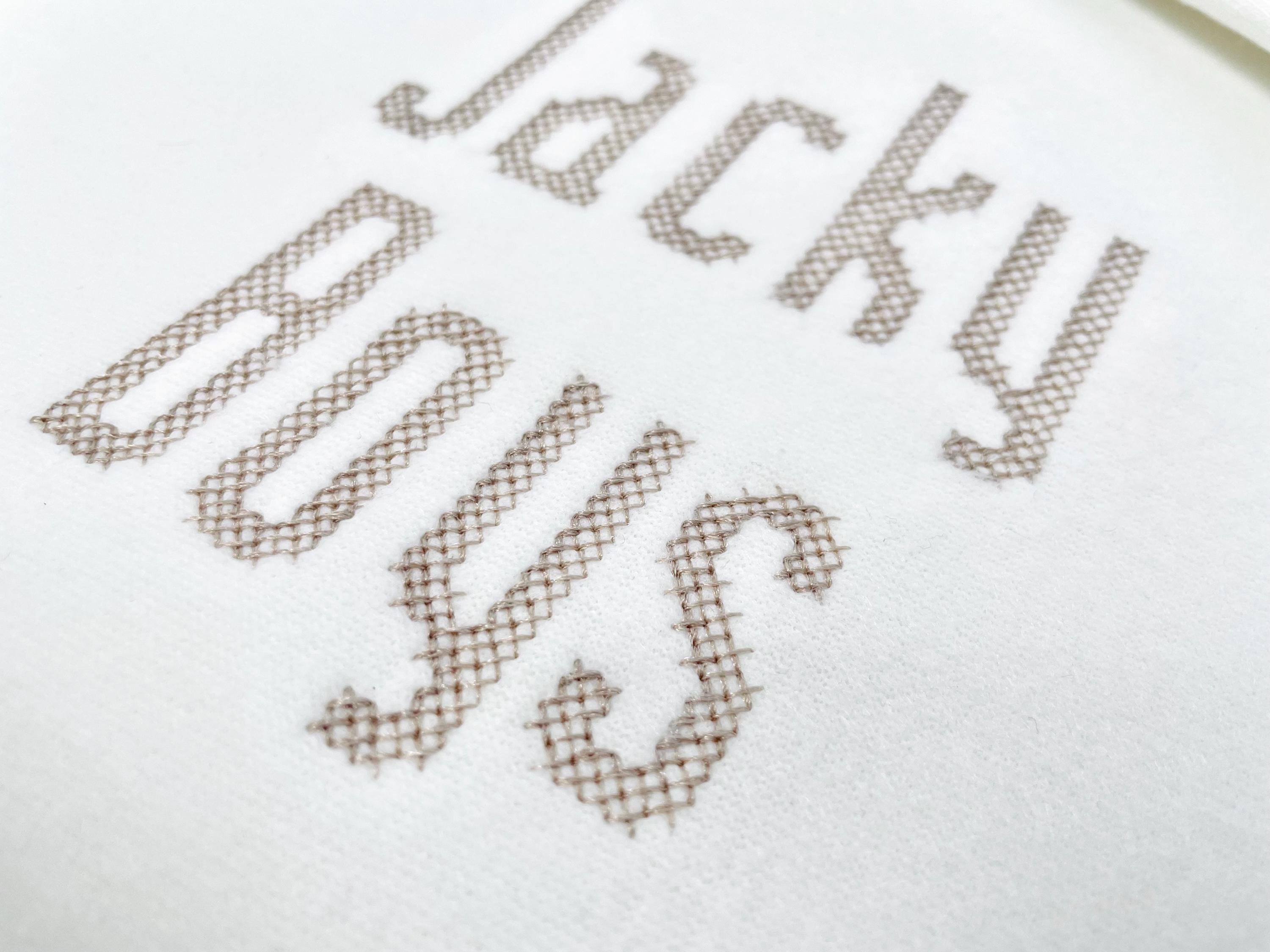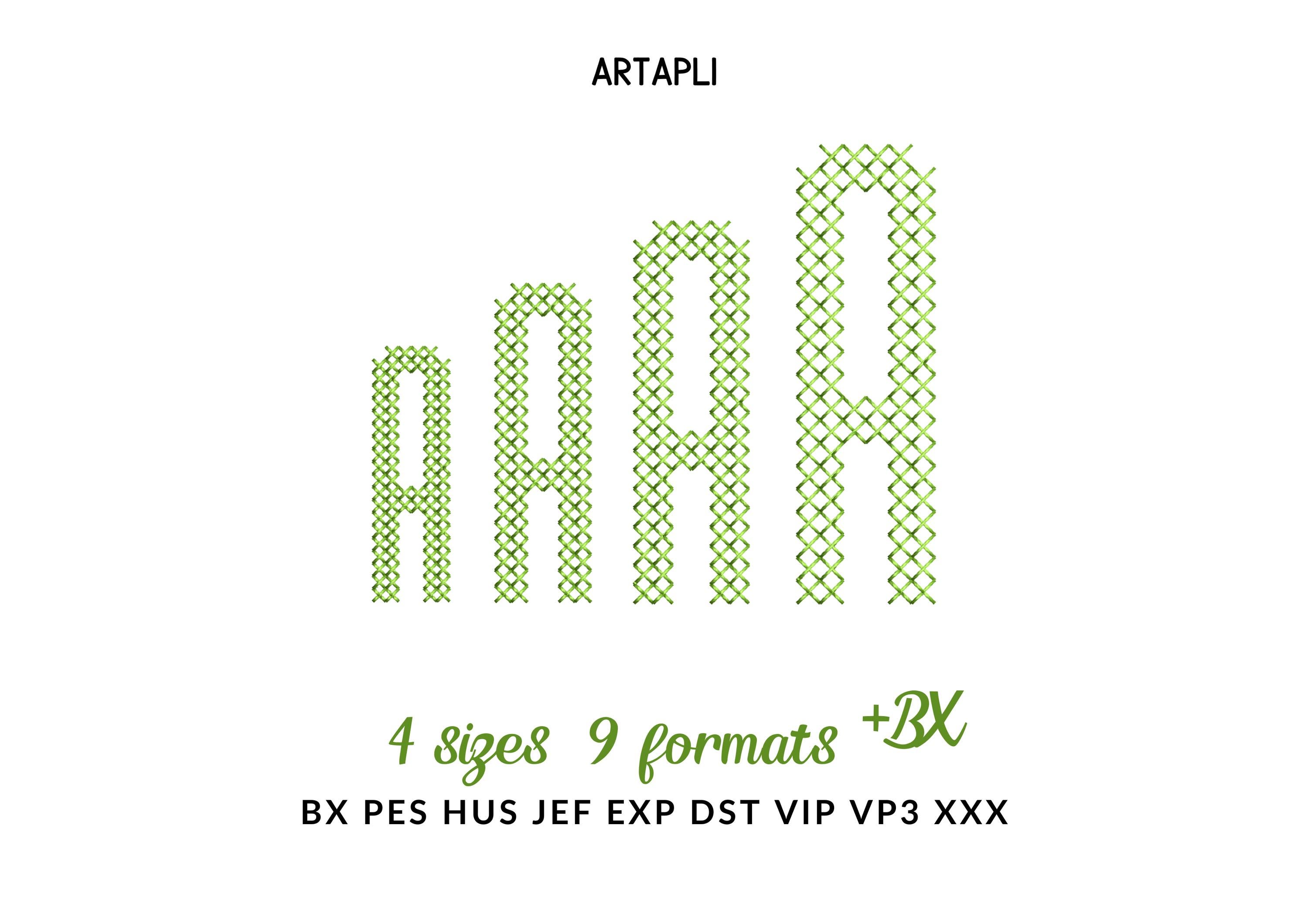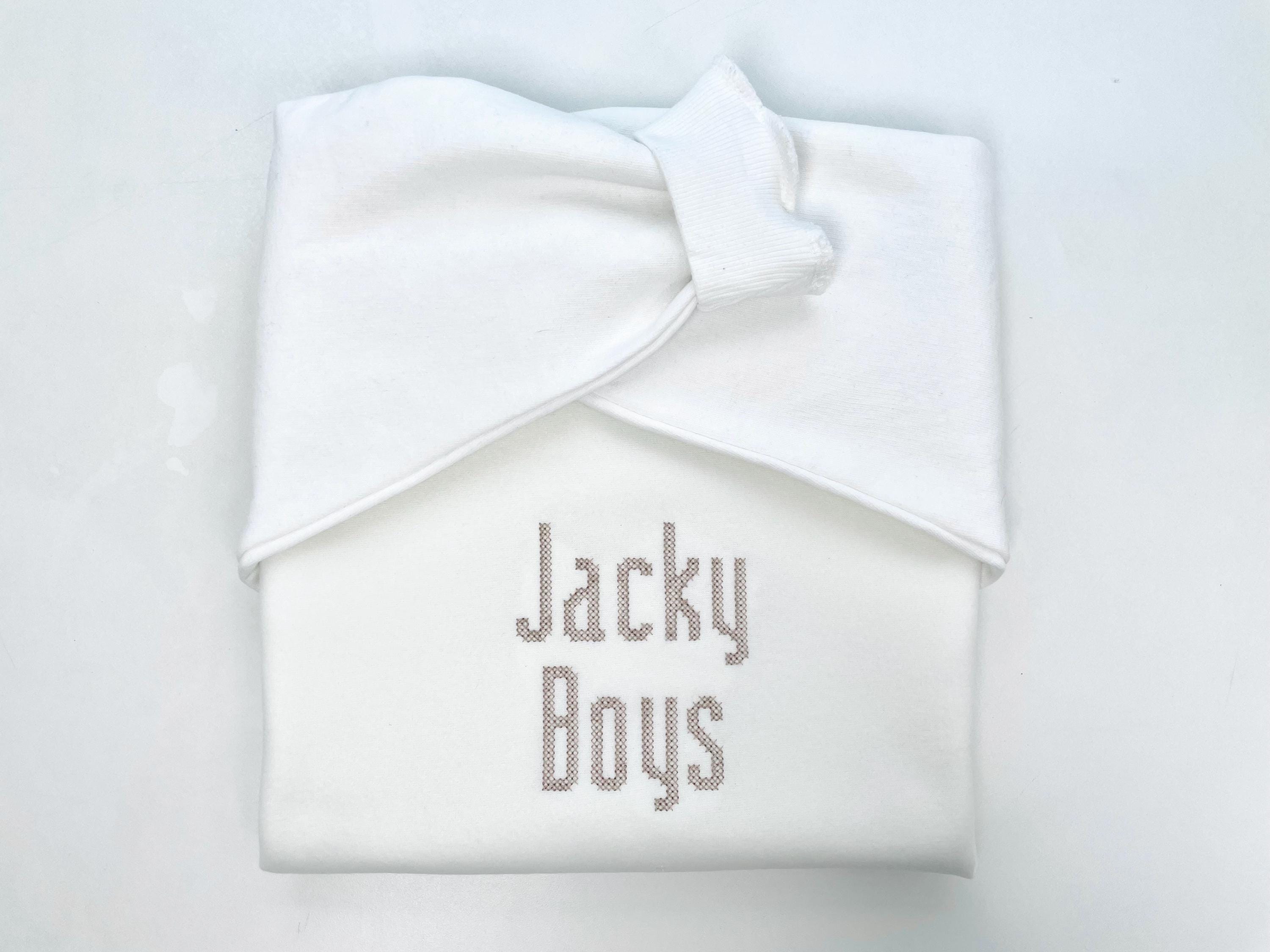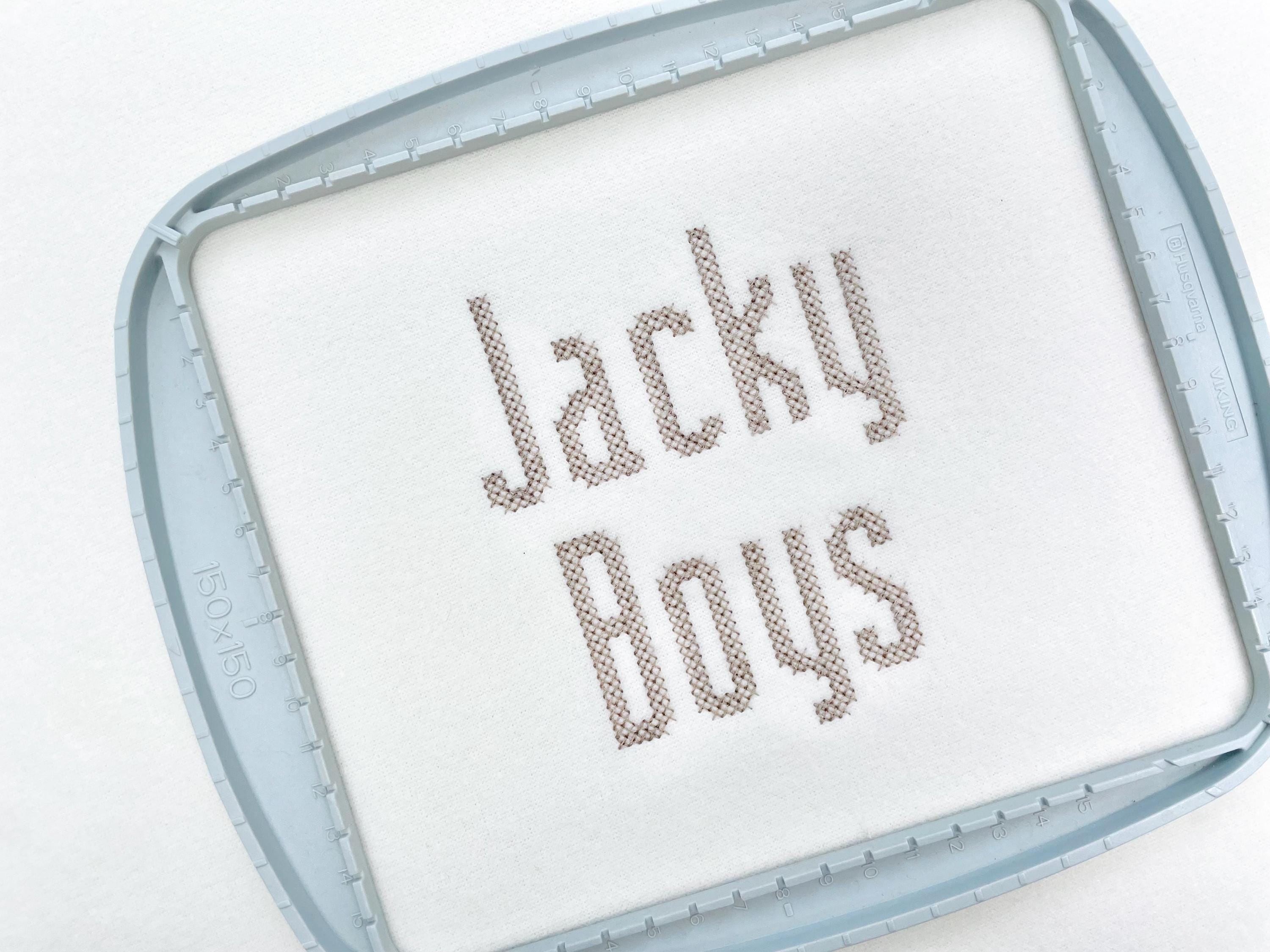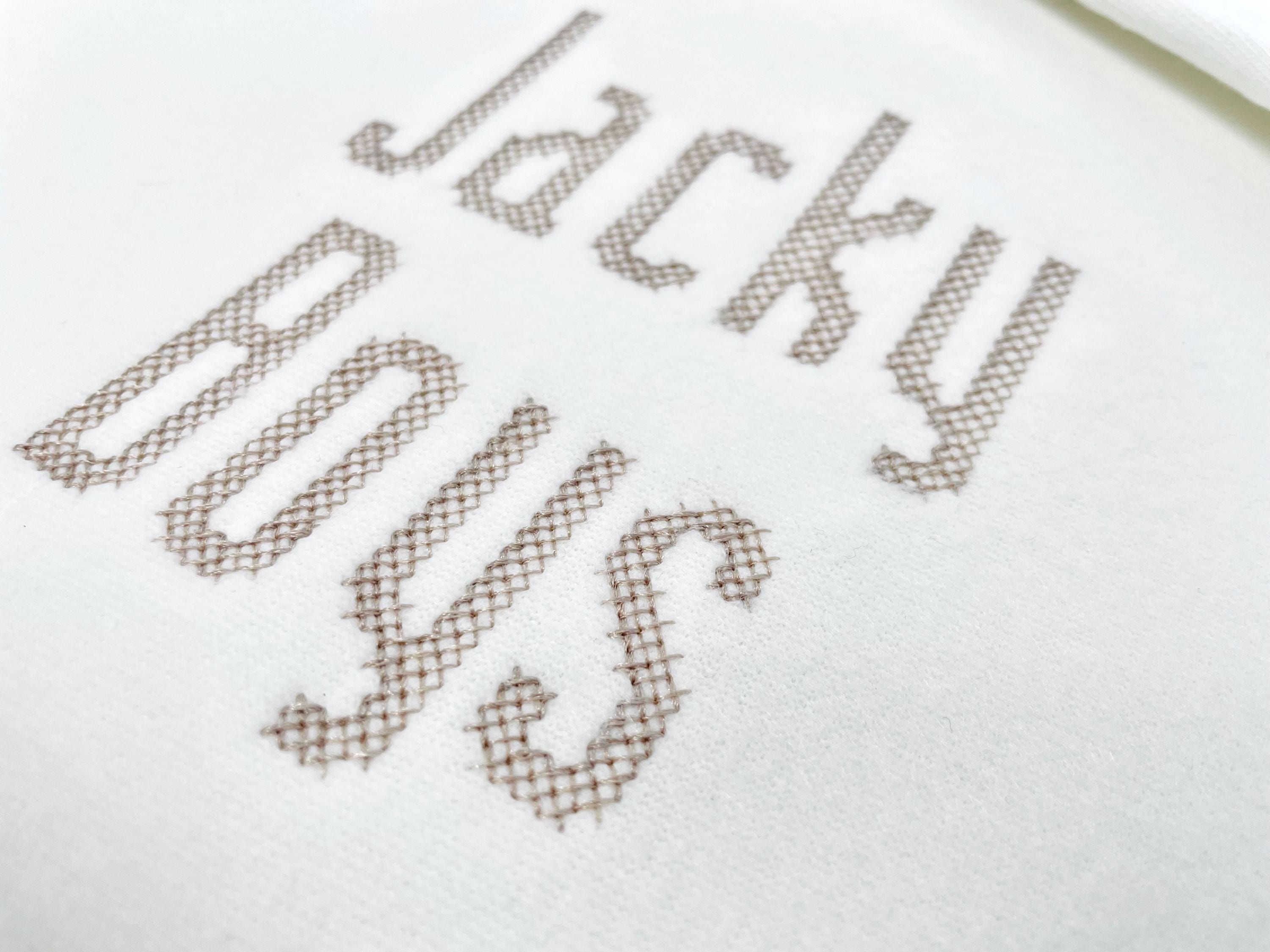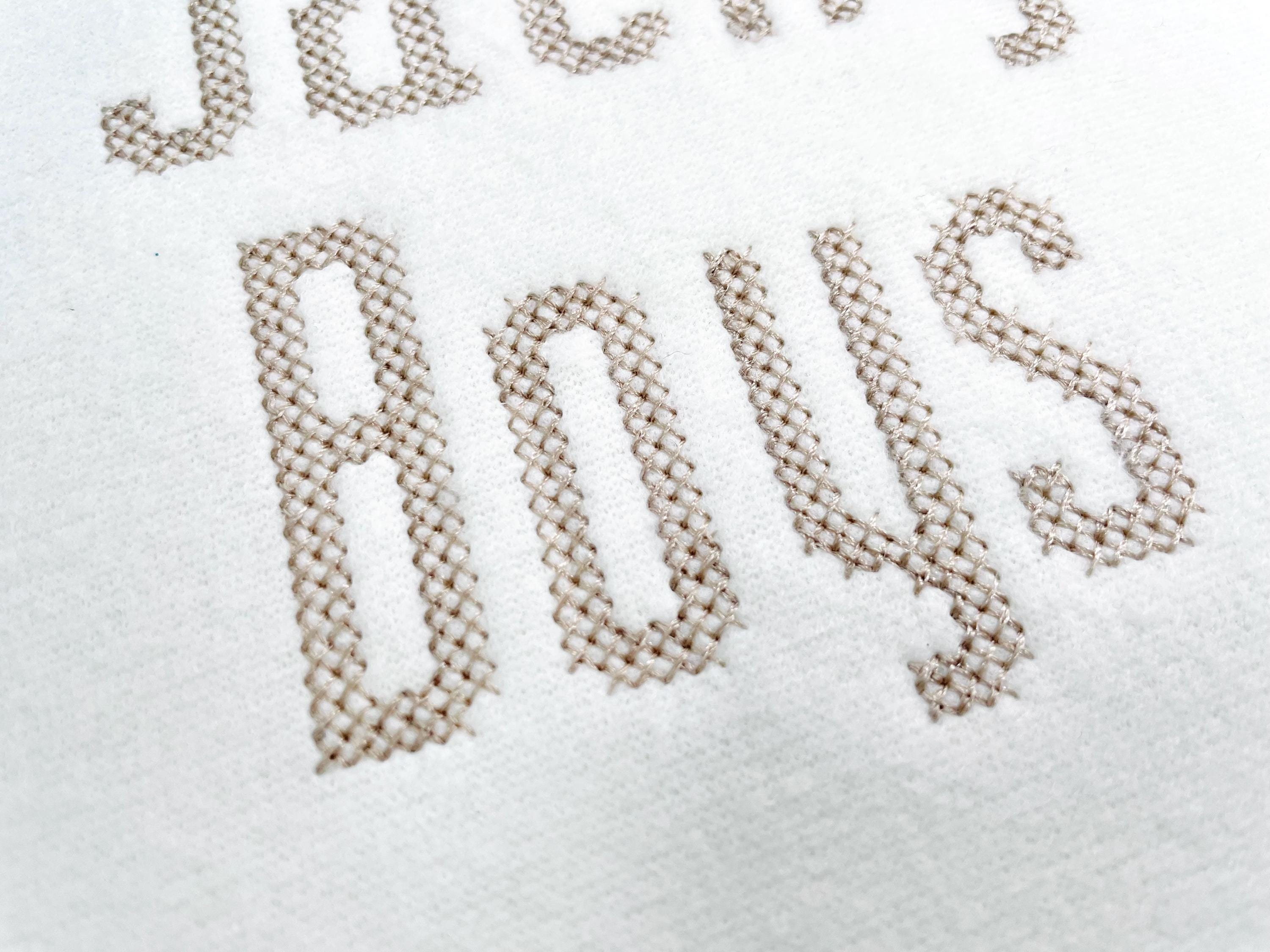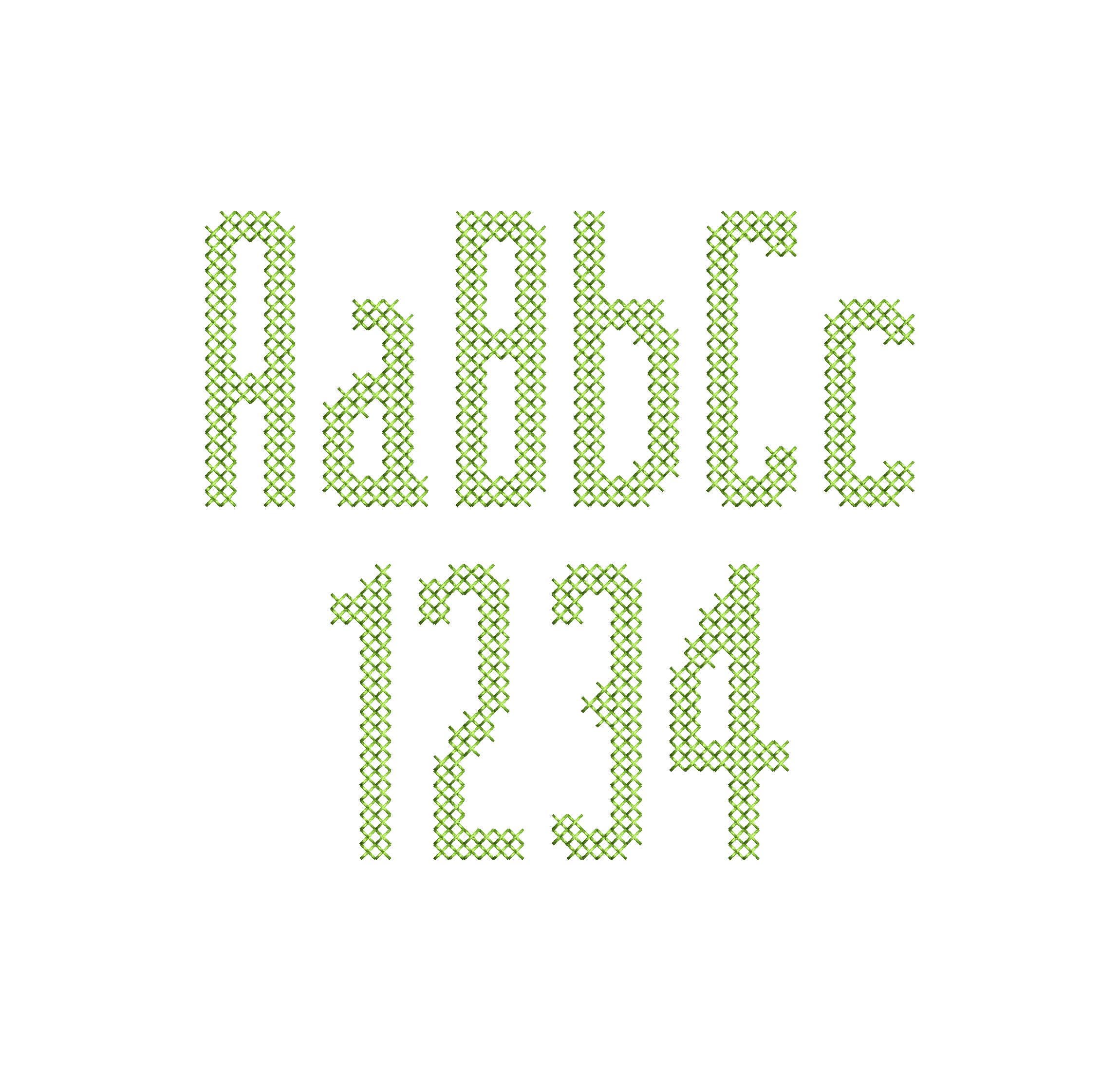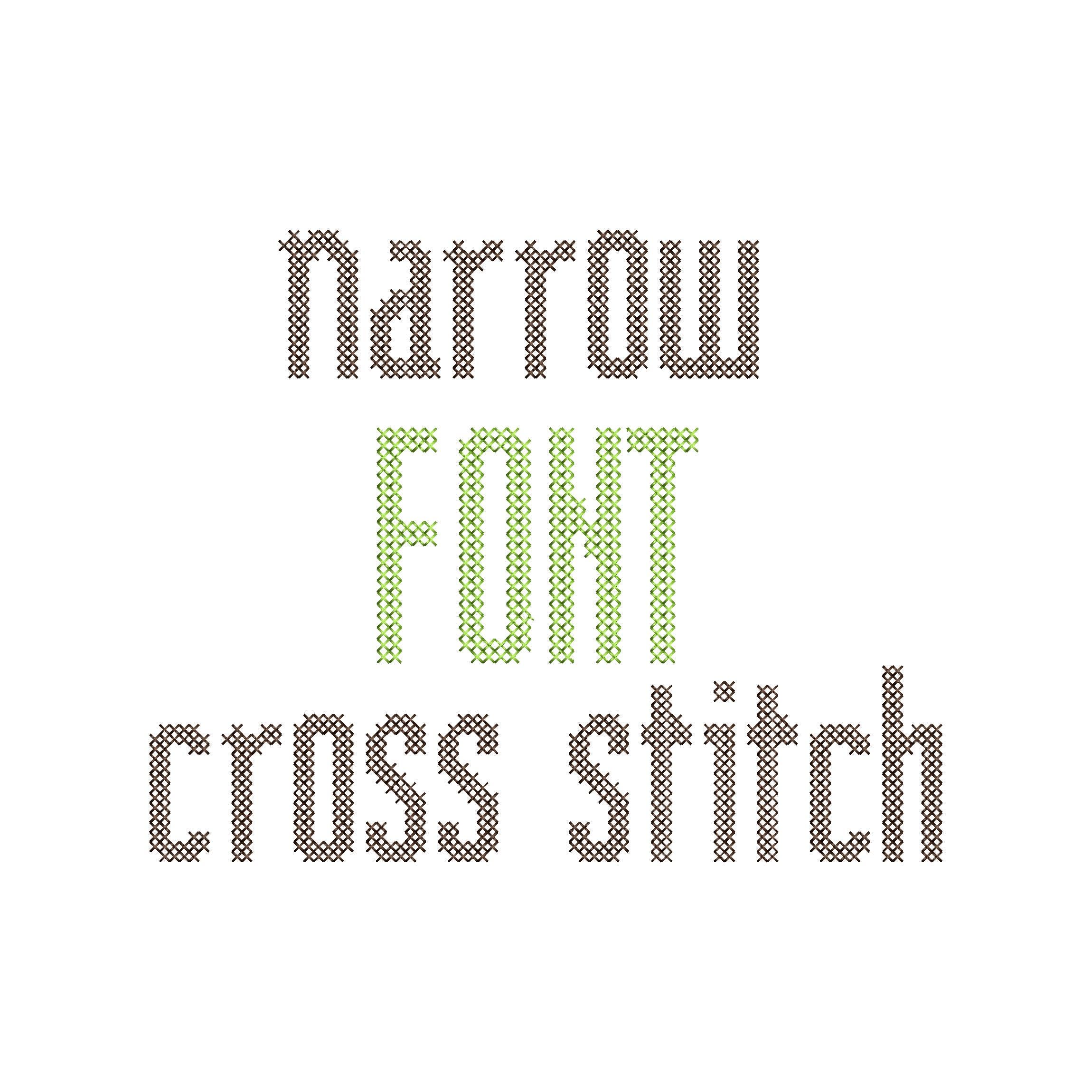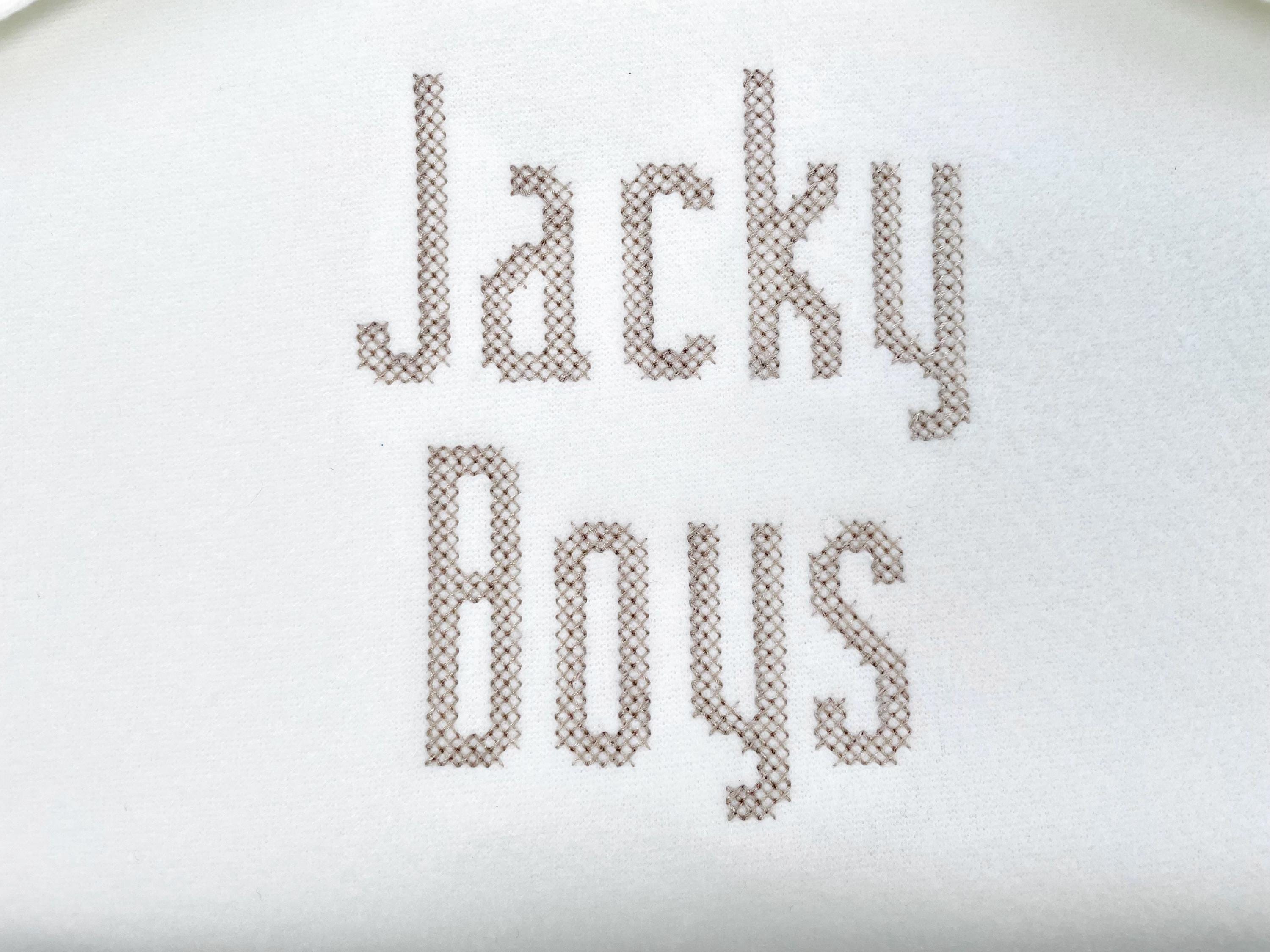
Cross Stitch Narrow Font machine embroidery designs Alphabet Monogram letters numbers punctuation Block style Font sizes 1.6 up to 2.4 inch
Entire alphabet has uppercase and lowercase letters Aa-Zz, numbers 0-9, and punctuation.